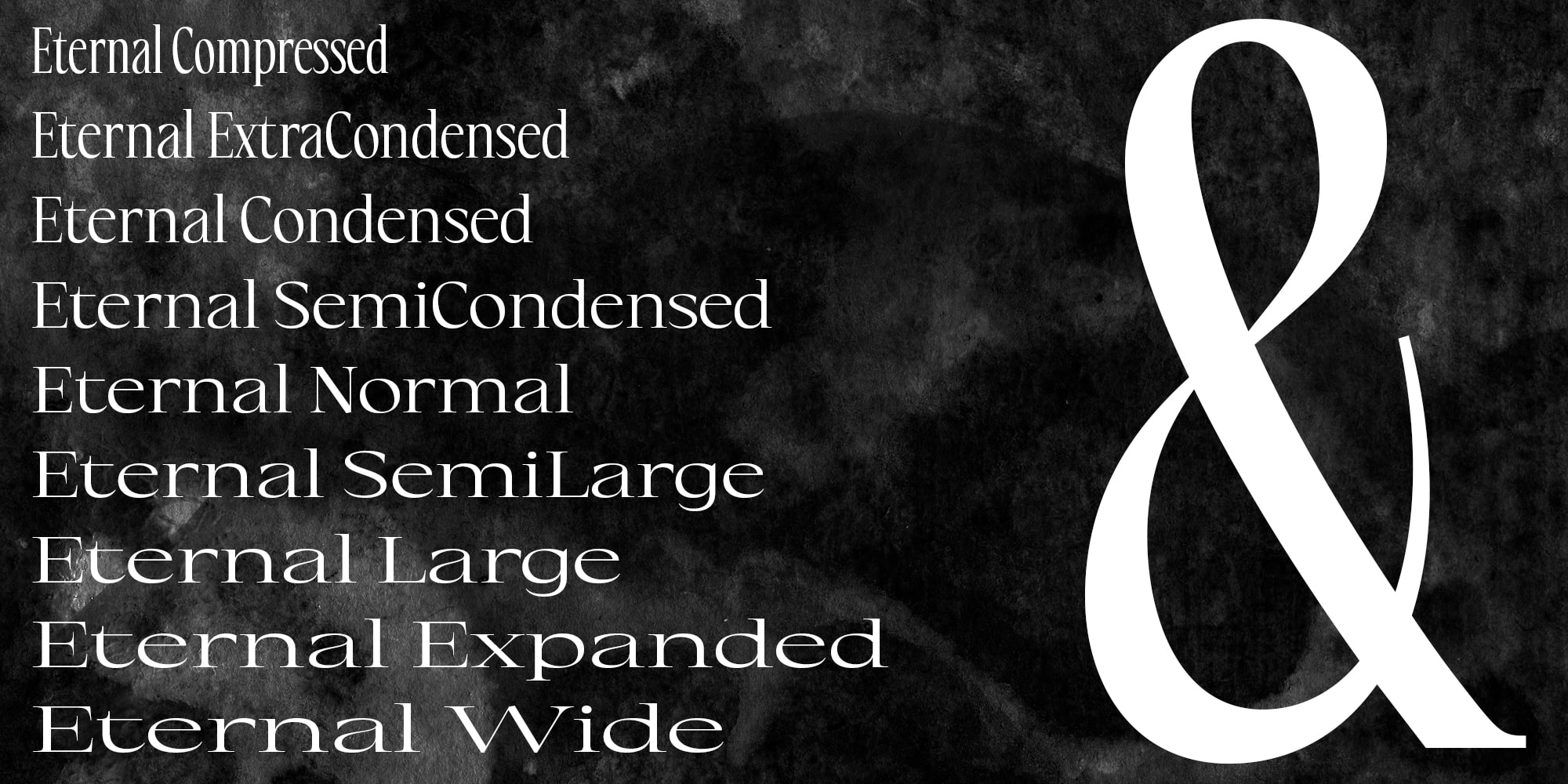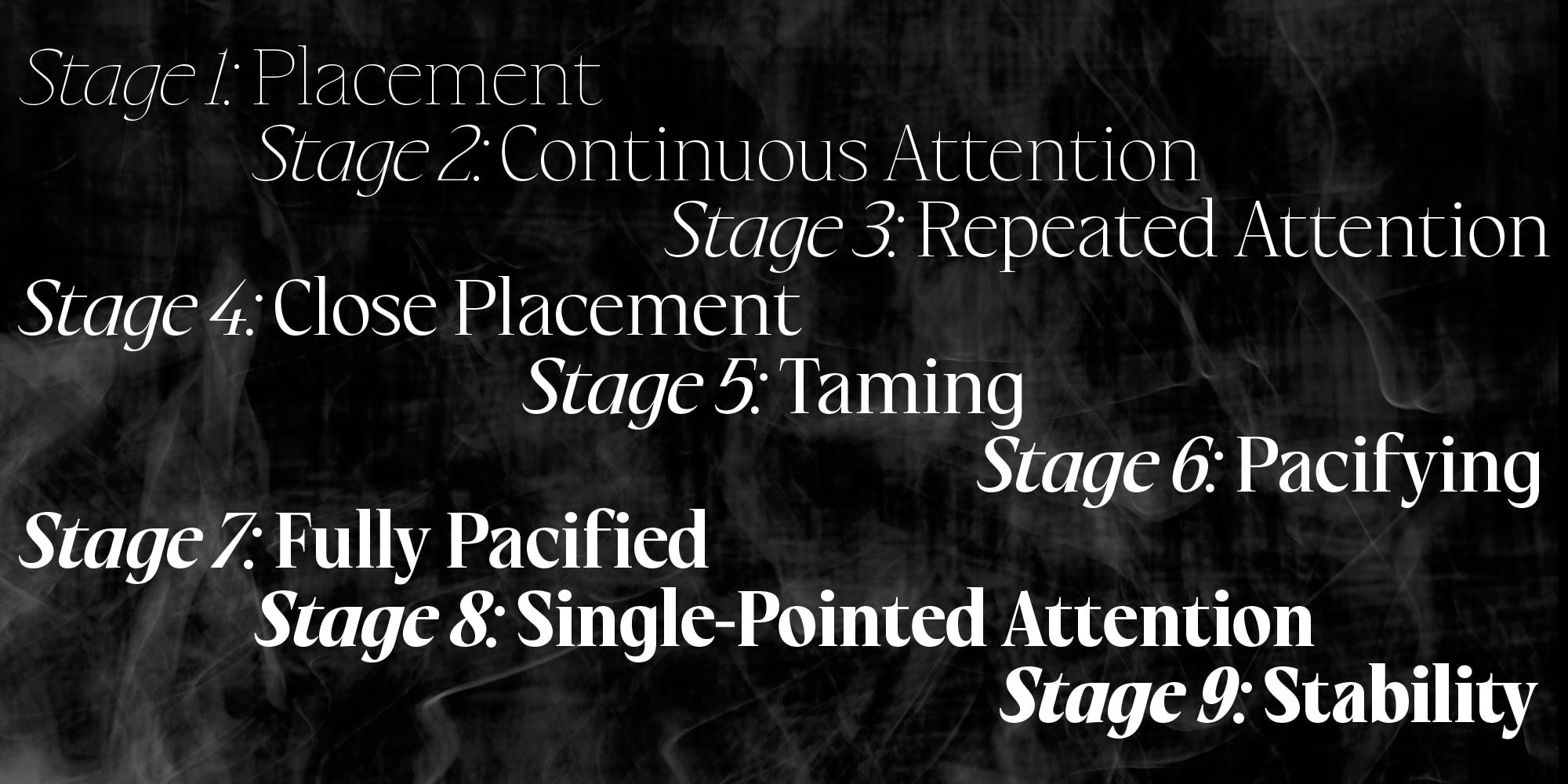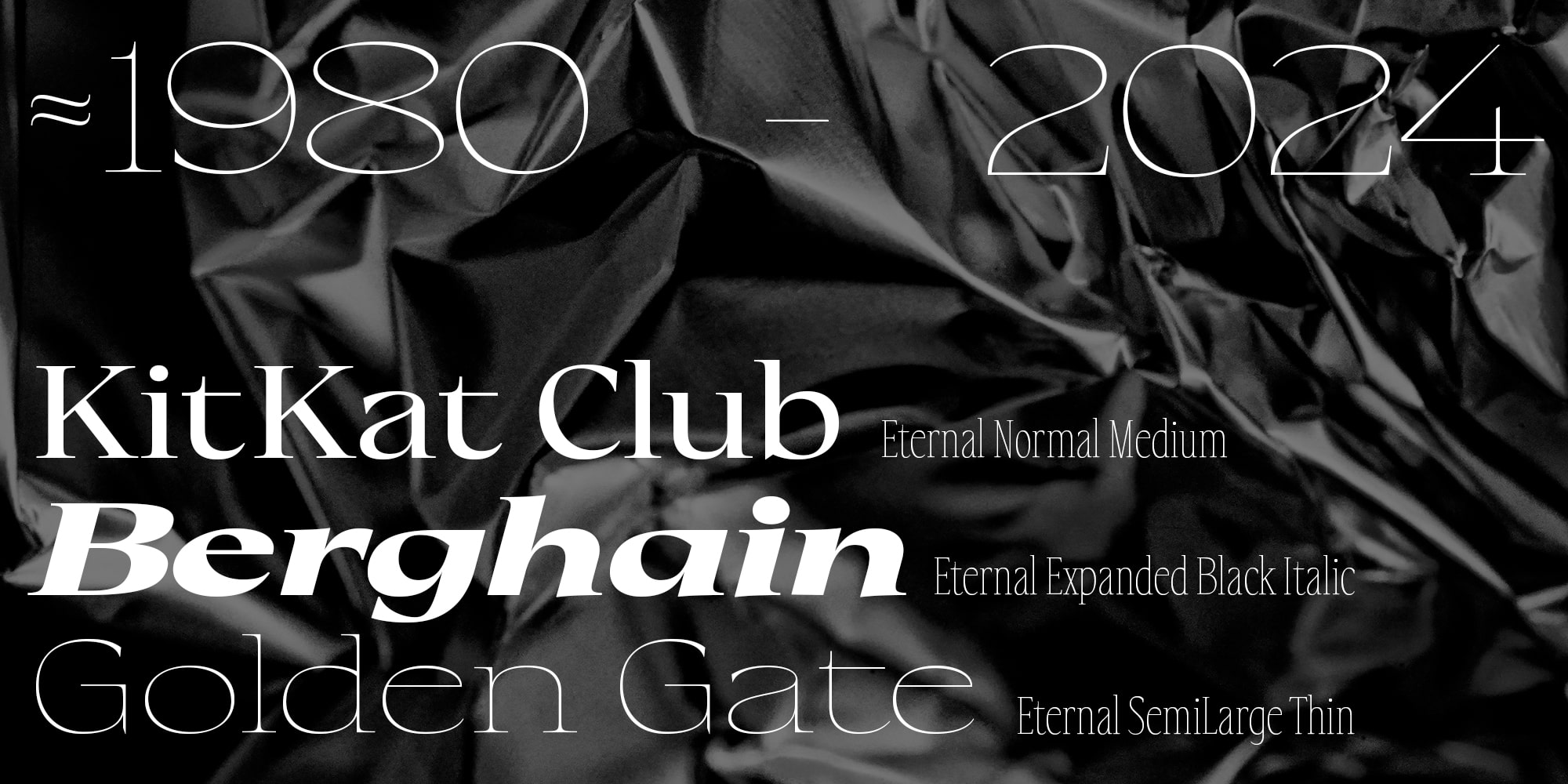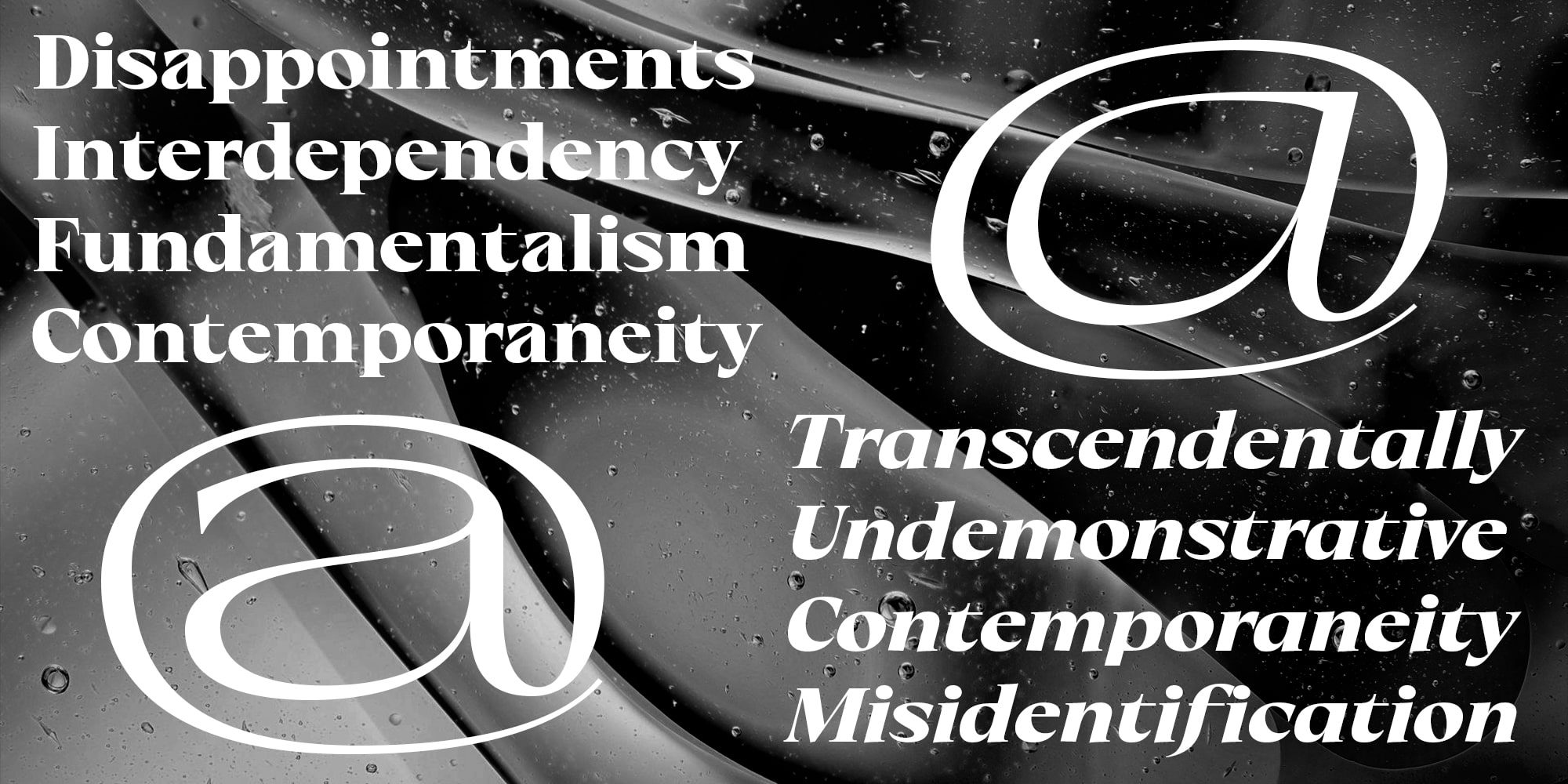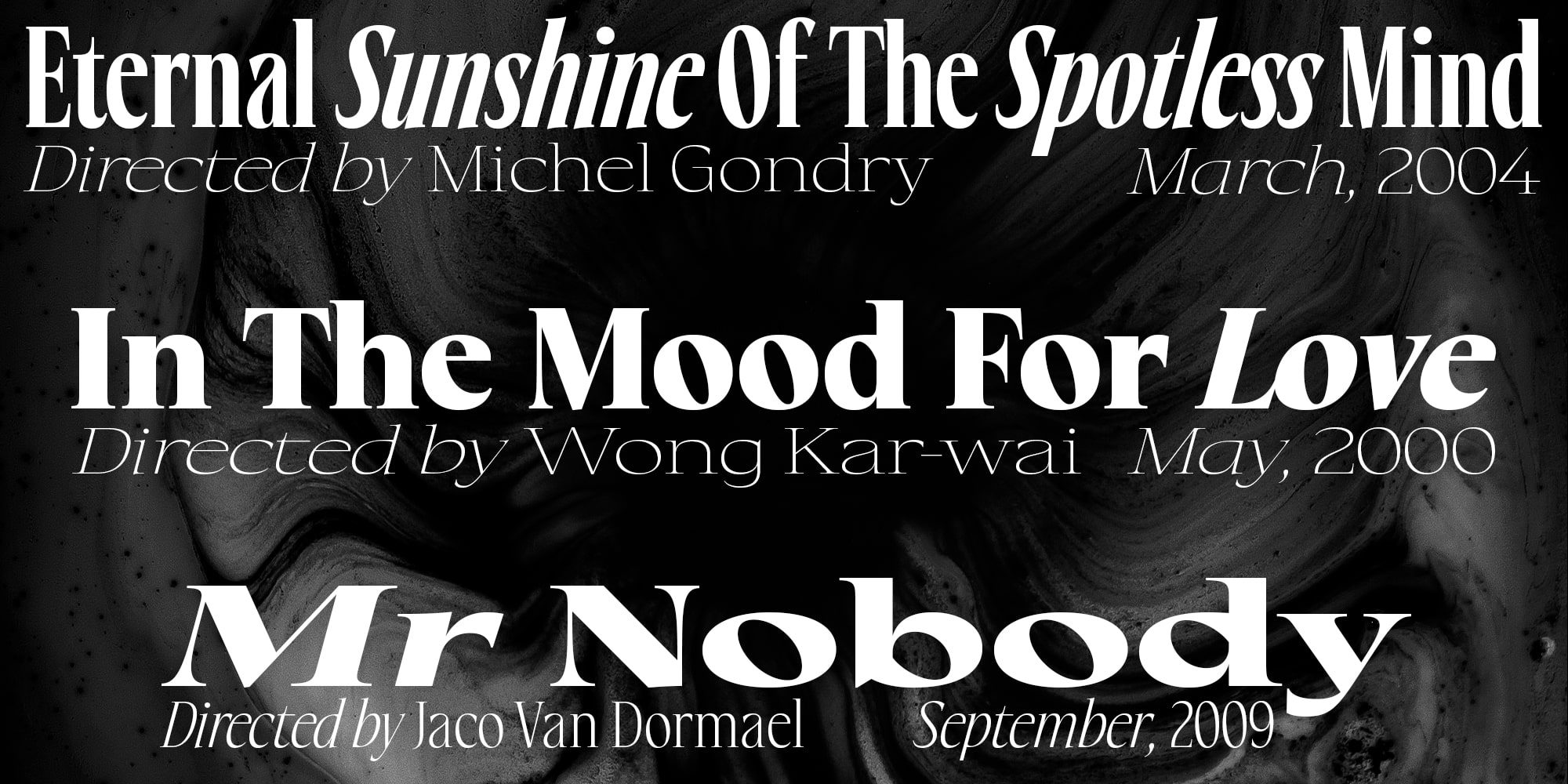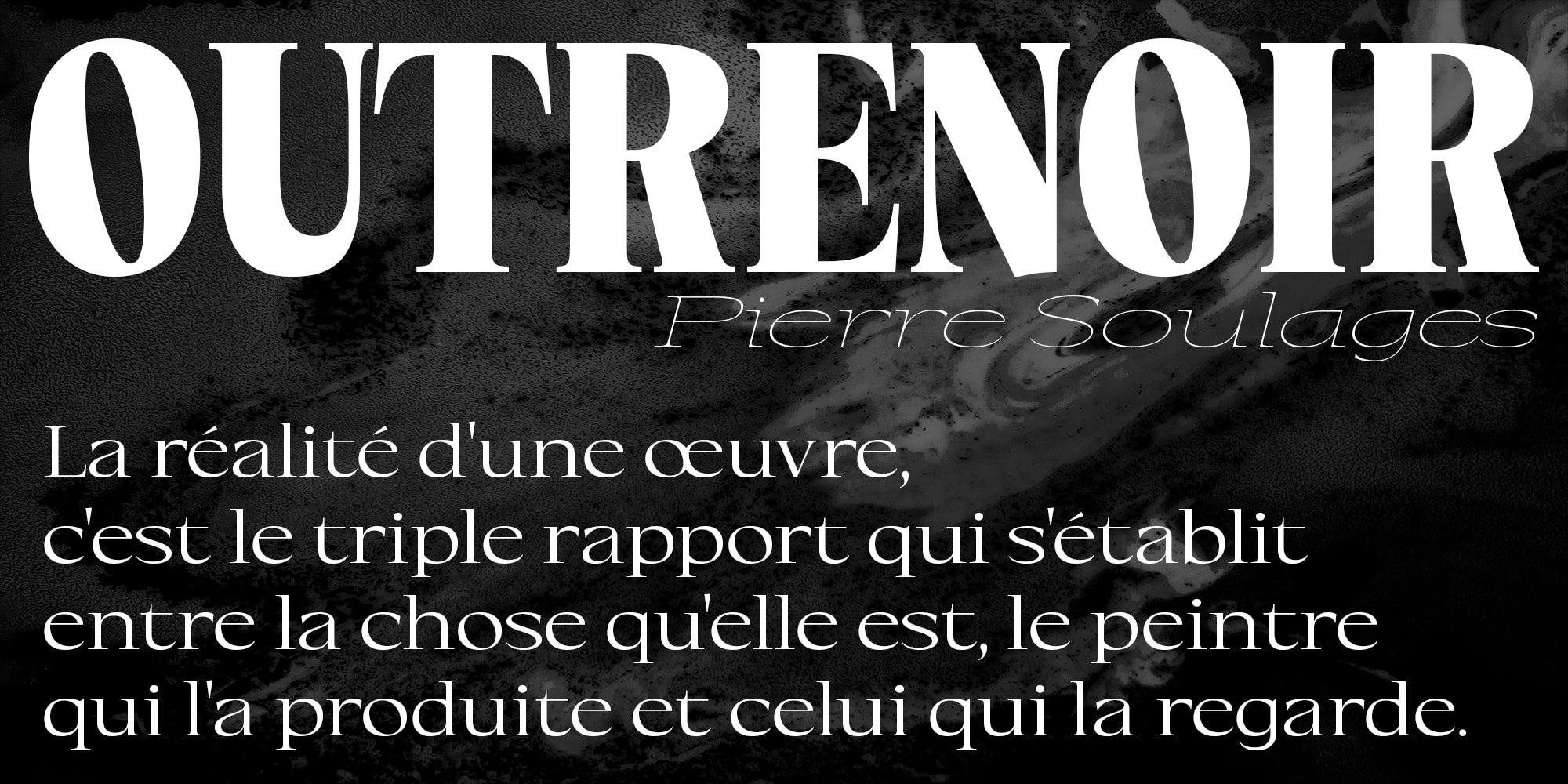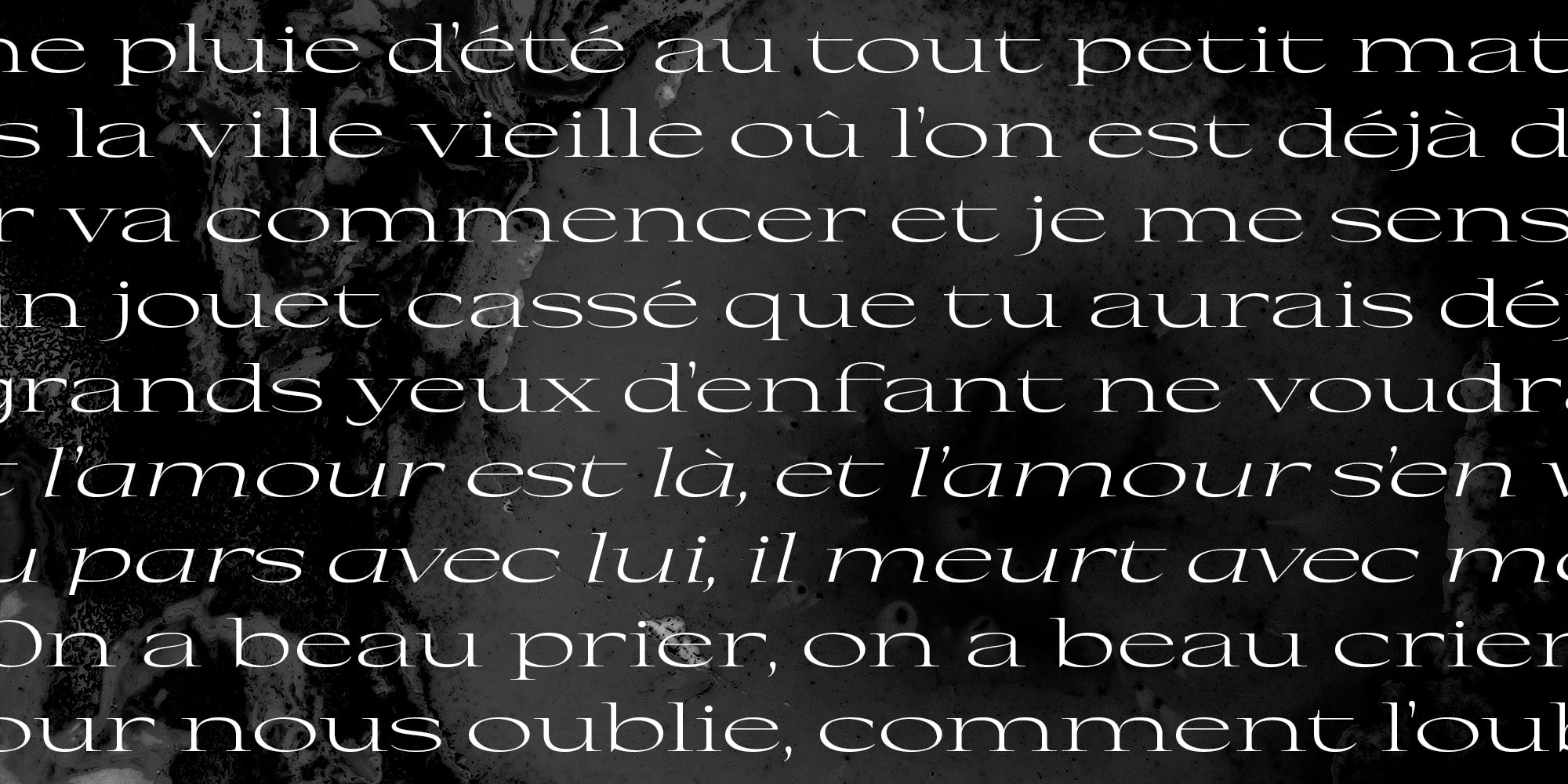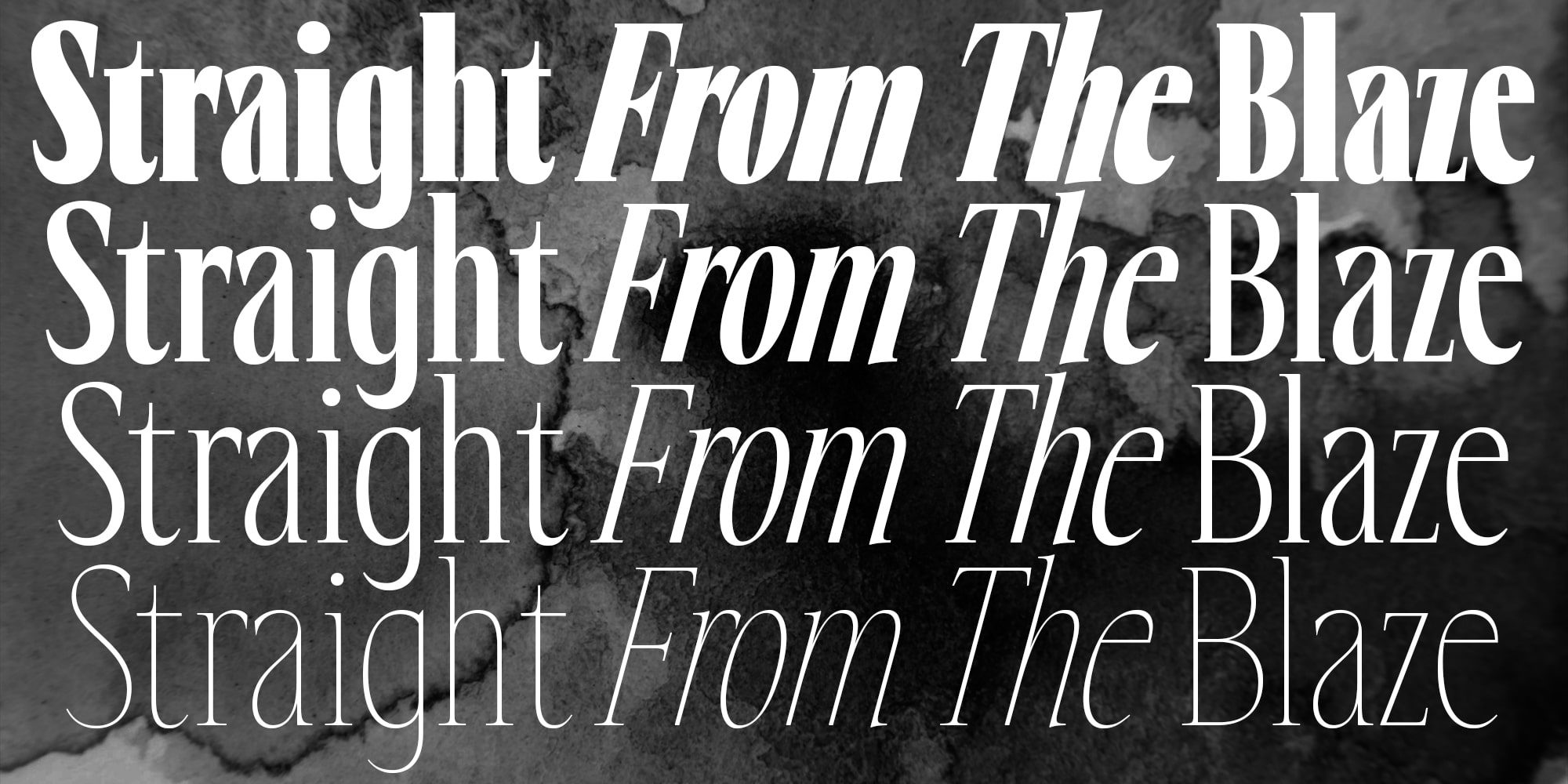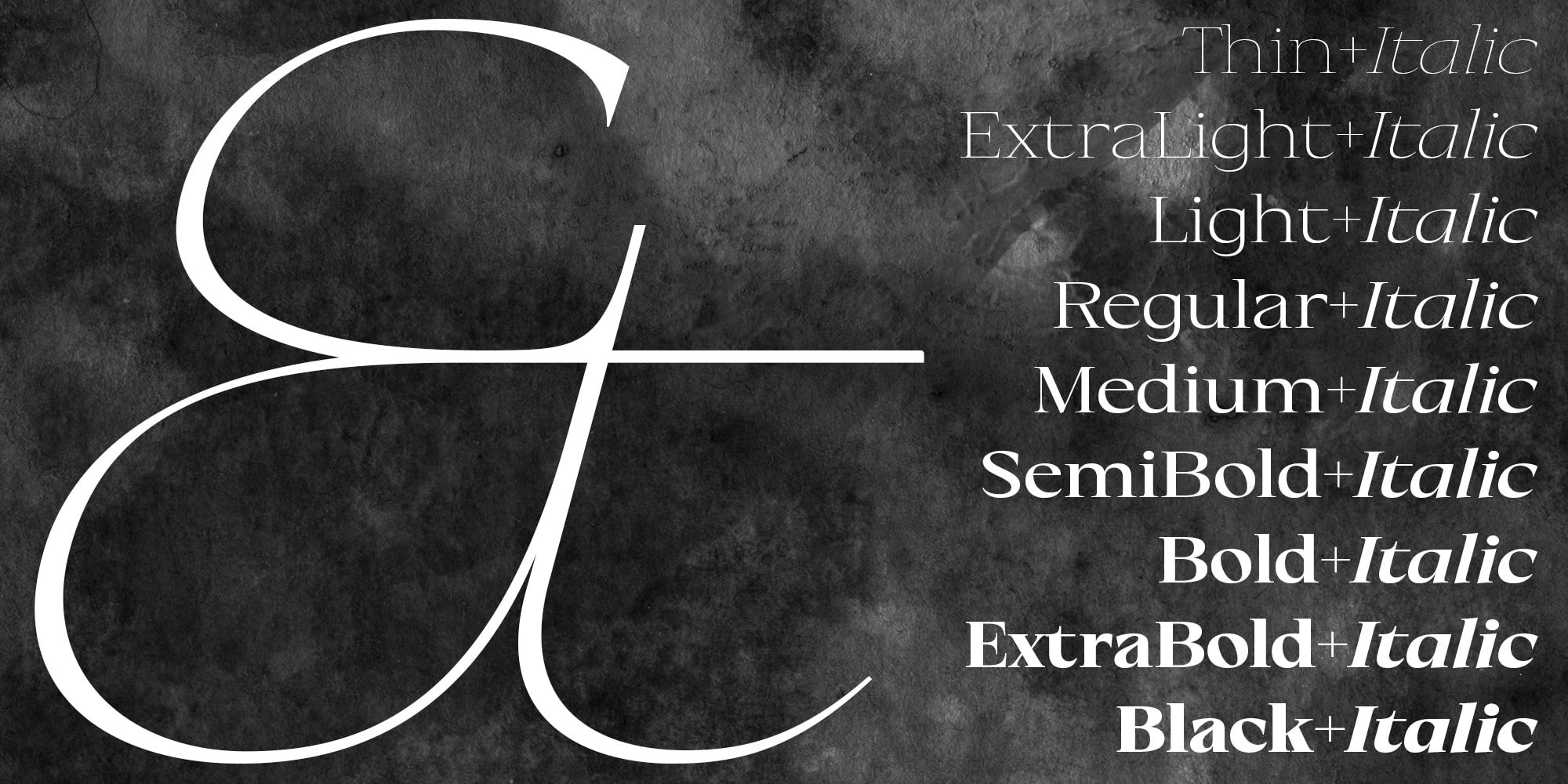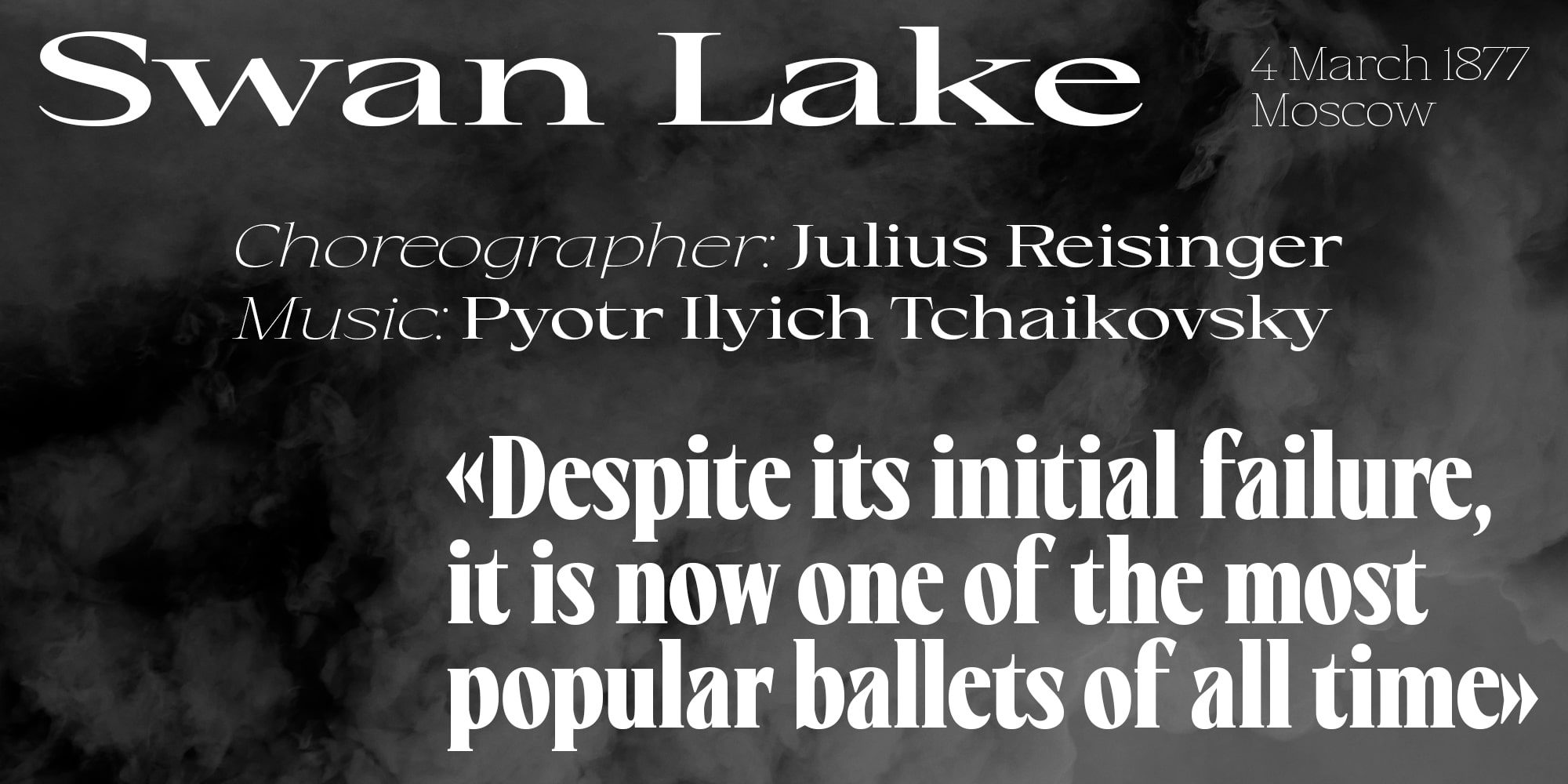
Eternal Collection
Eternal Collection is a display font family that is designed for high-impact visual communication, this font family features a striking combination of serif detailing and high contrast proportions. With an extensive range of 162 styles, Eternal Collection offers a broad range of creative possibilities. The family includes variations in width, weight, and slant, allowing for nuanced typographic expression across various design contexts. From bold, commanding headlines to delicate, refined subheadings, this font family ensures that every design element can be tailored to the precise mood and tone you wish to convey. Choose from a full spectrum of widths, from compressed to wide, and a variety of weights, from thin to black. The inclusion of slant styles adds an extra dimension of flexibility for dynamic, forward-leaning typography.